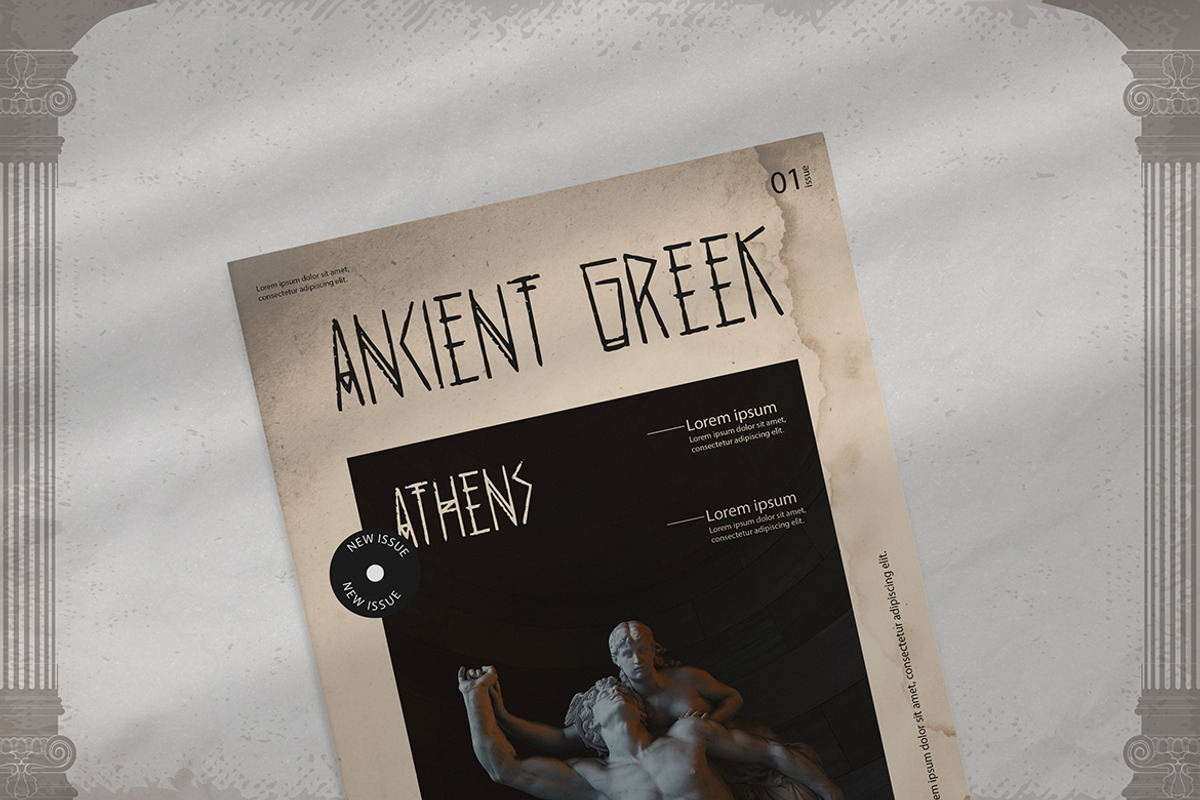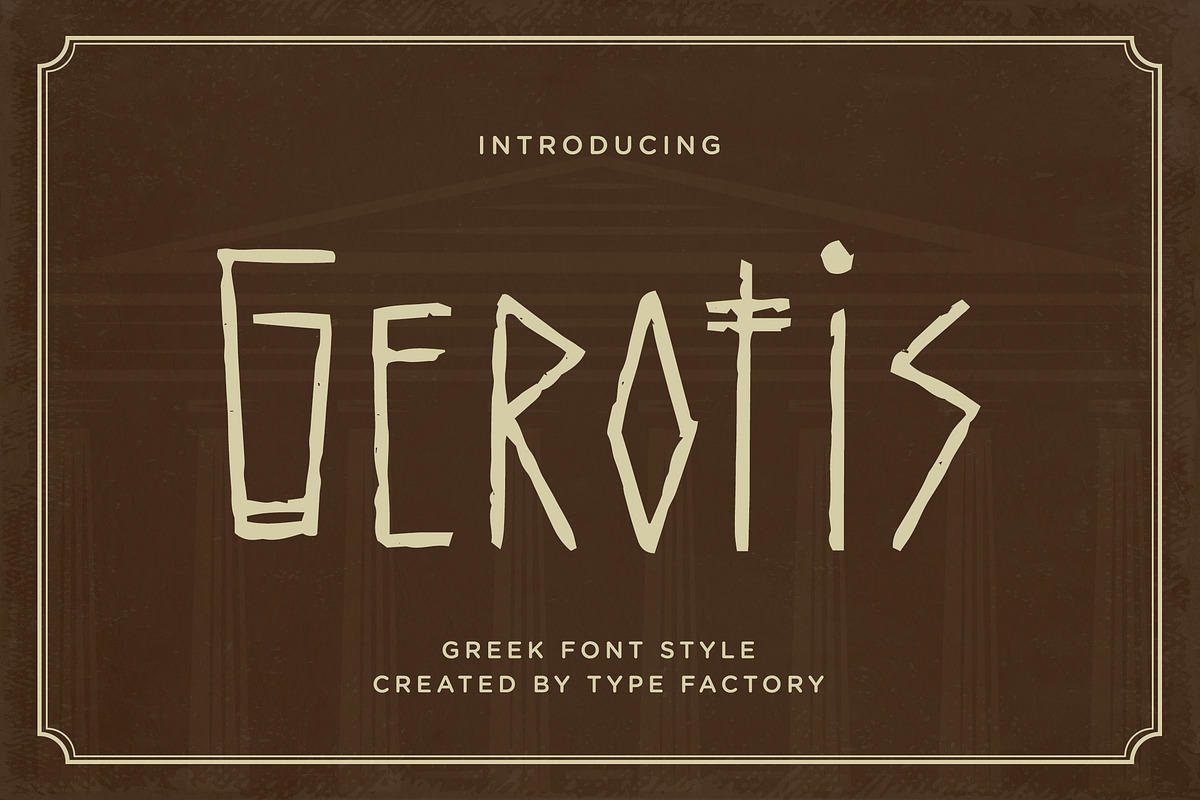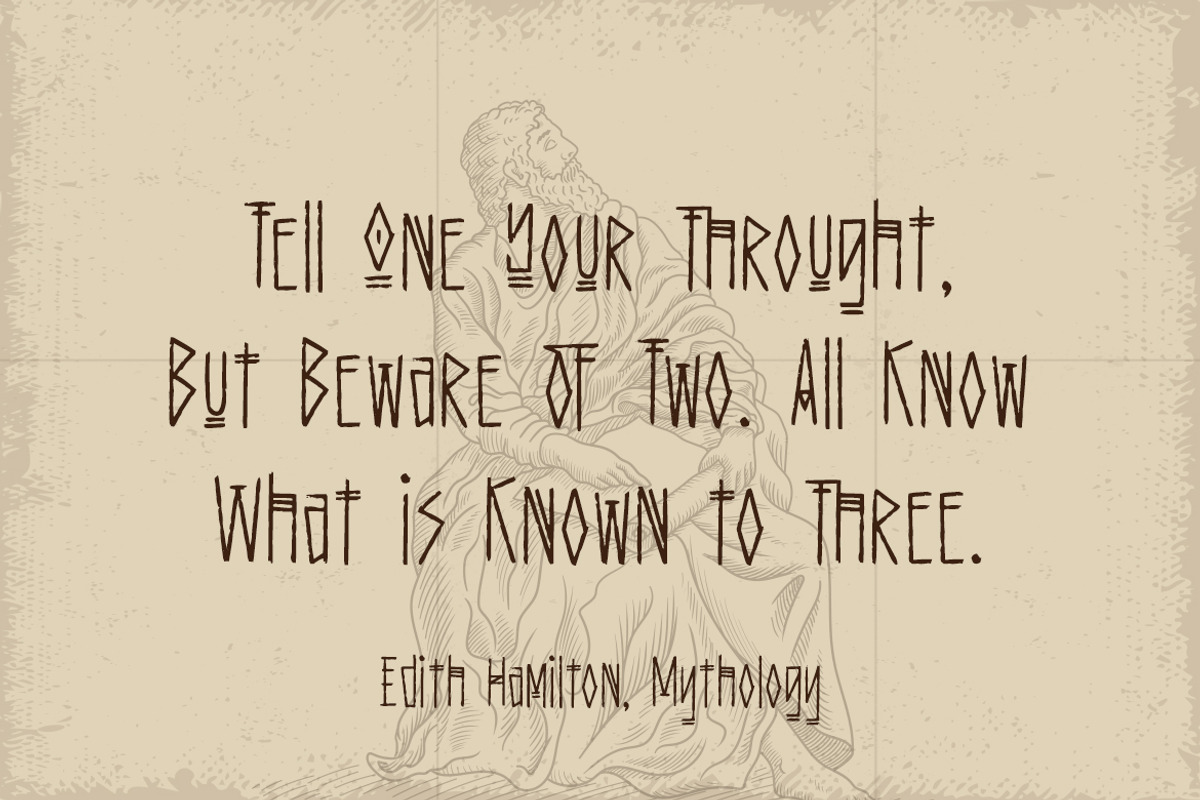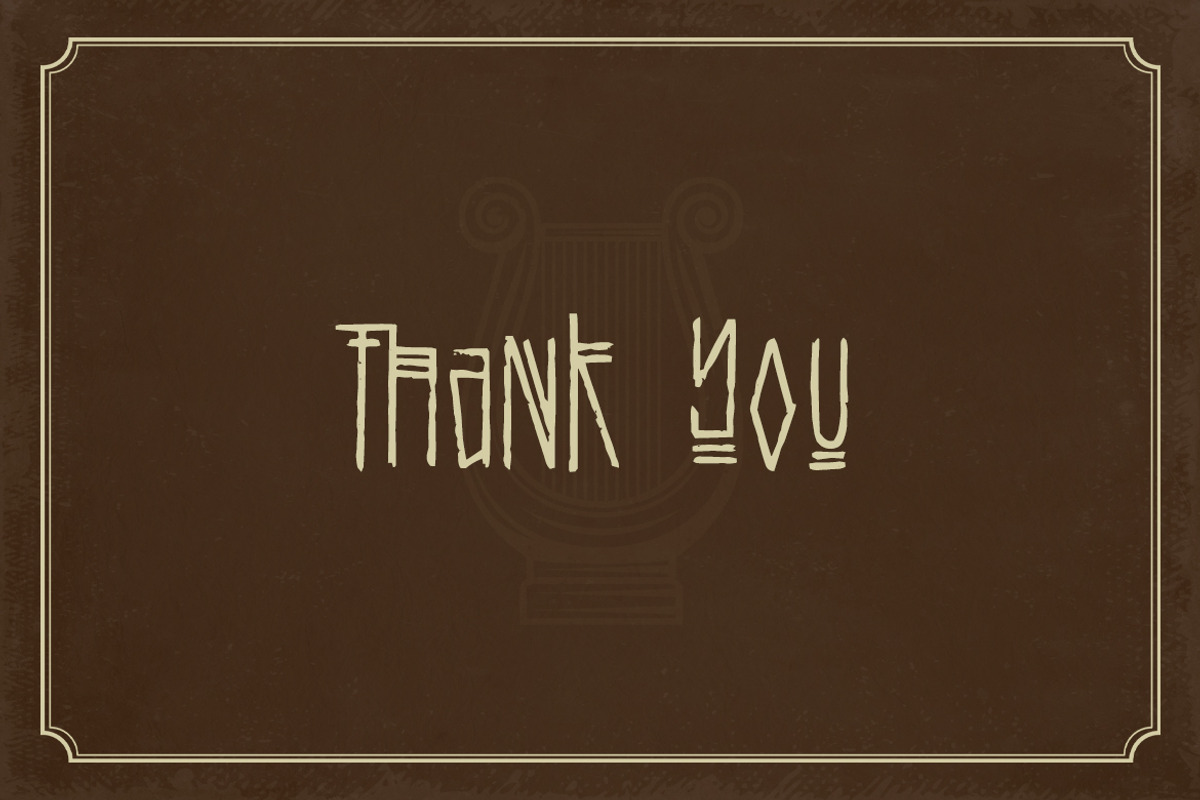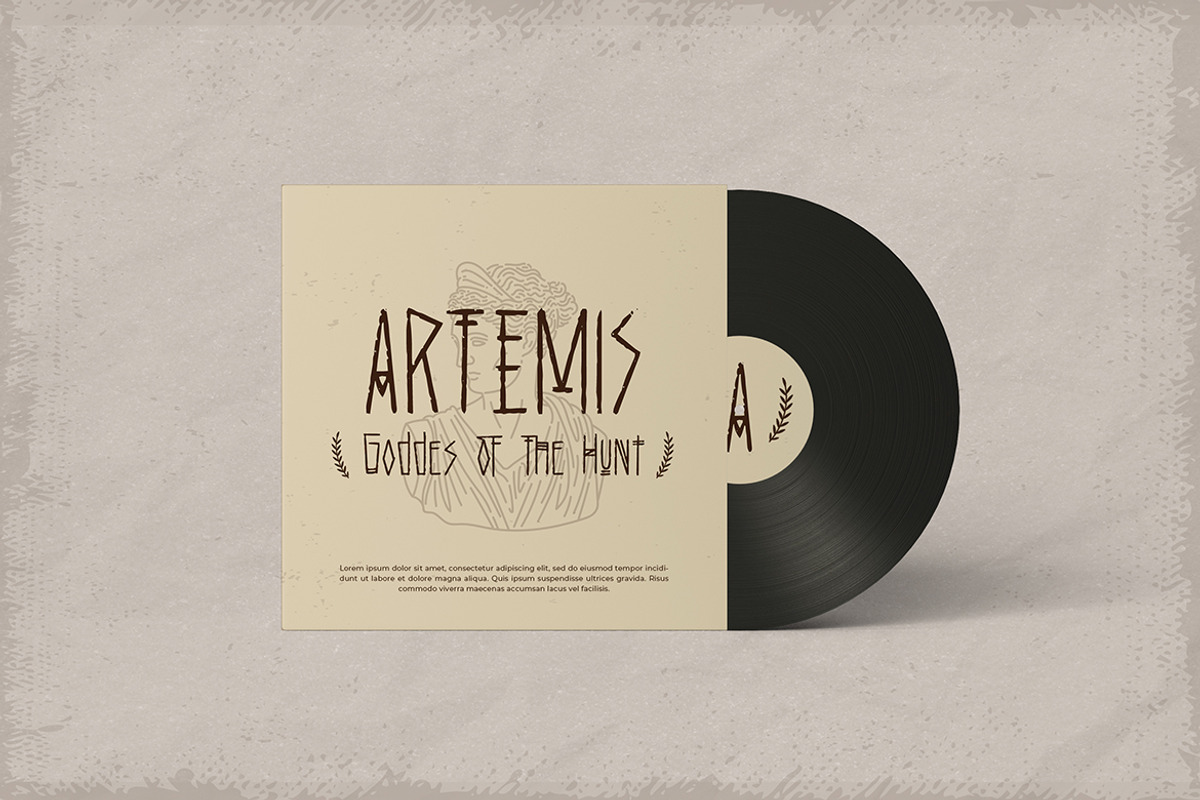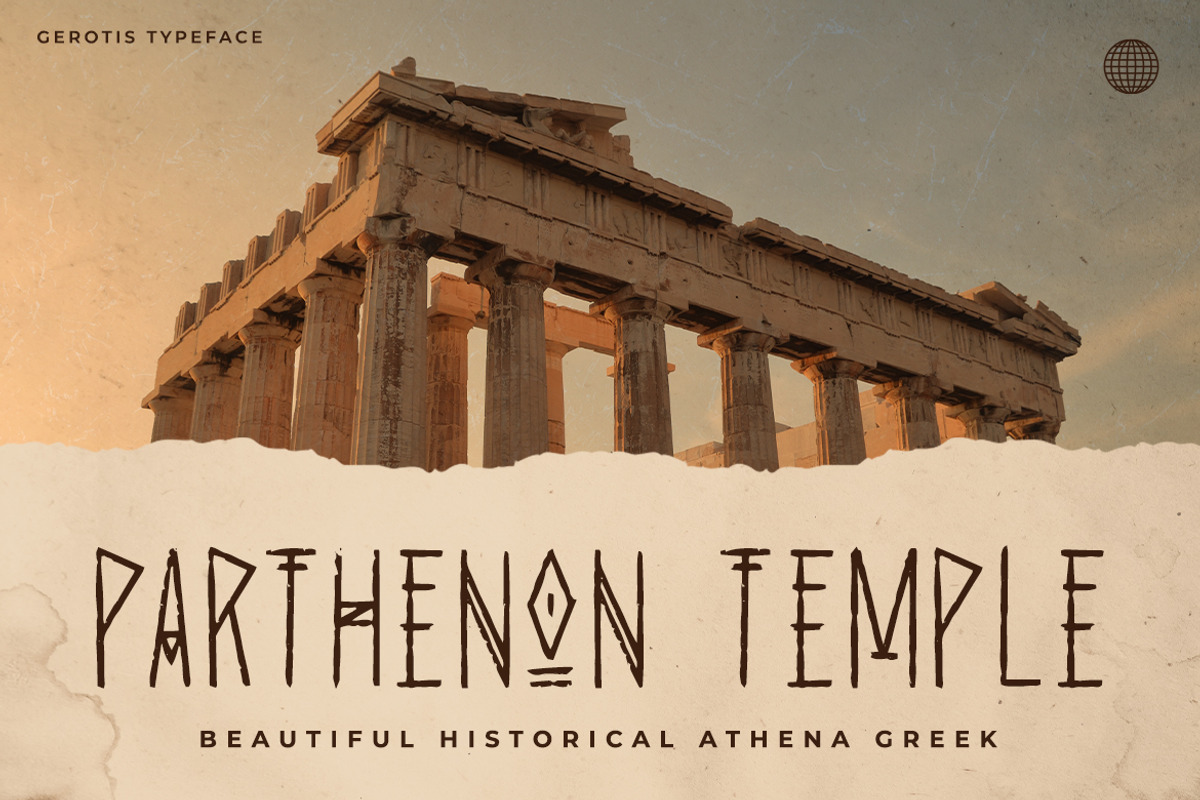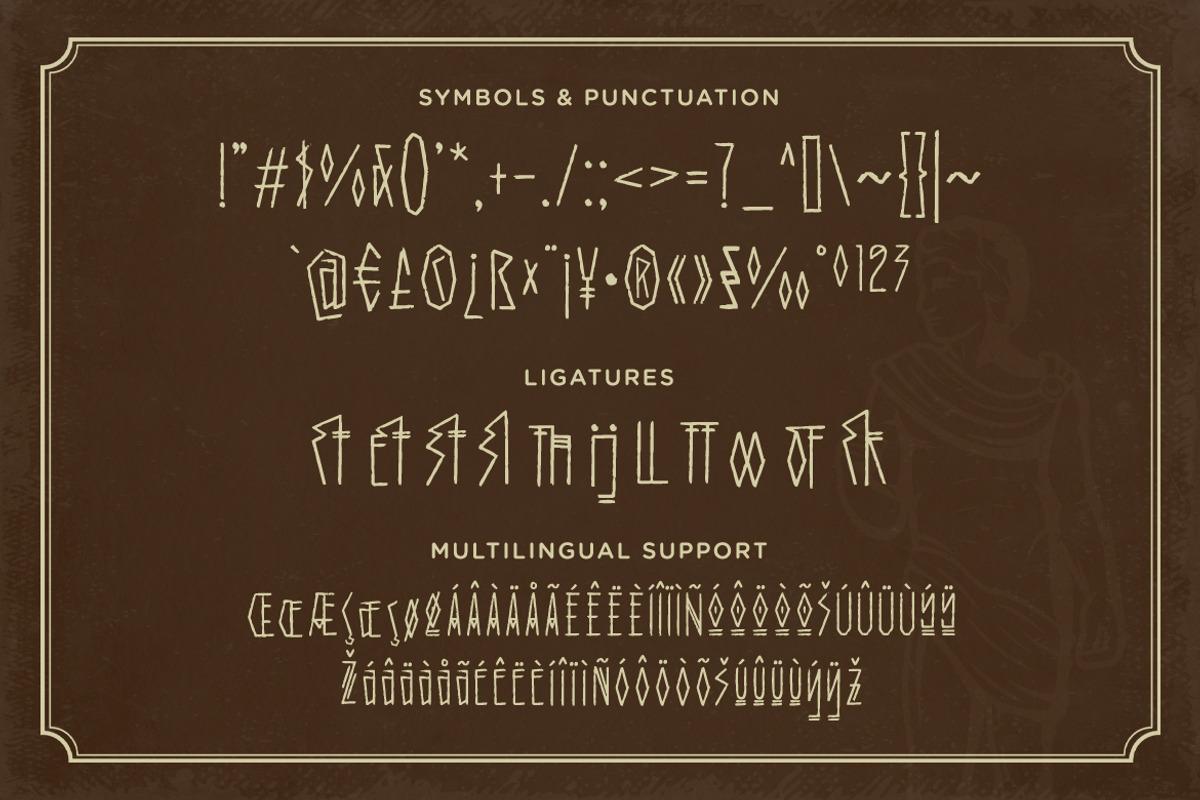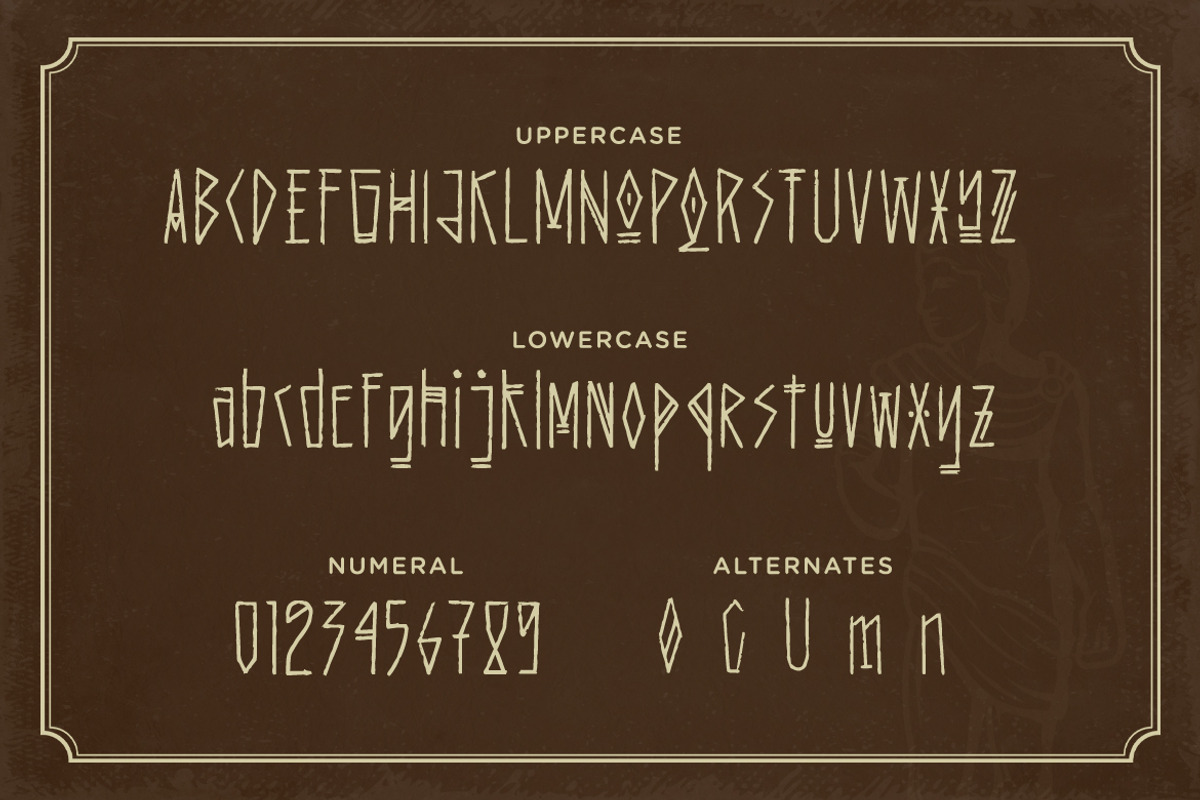
Gerotis - Greek Font Style
Gerotis is an awesome font done in Greek style. It will looks good on any poster, book cover, flyer, invitation, or print.
- Symbols & Punctuation
- Numeral